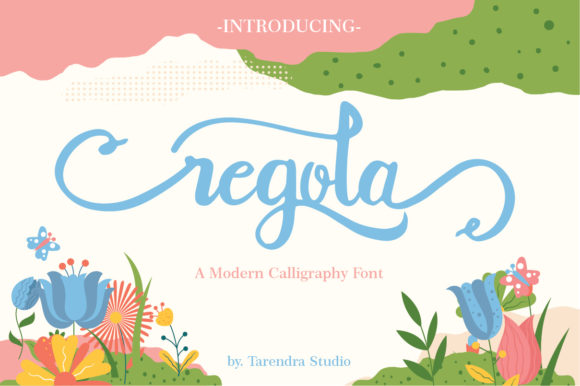
Introducing Regola Font, the script font that will add a dash of elegance and charm to your creative projects!
Picture this: A handwritten font so mesmerizing, it'll make your words dance off the page with grace and fluidity. Regola Font is a script font specially designed to capture the beauty and allure of handwritten signatures. Each letter flows into the next with an effortless elegance that will leave your audience spellbound, and it's perfect for adding a personal touch to any project.
Unleash your creativity and let your imagination run wild with Regola Font. Its versatile nature makes it ideal for a wide range of projects, from wedding invitations and stationery to social media posts and advertising campaigns. Whether you're designing product packaging or creating eye-catching quotes, Regola Font will elevate your words and leave a lasting impression.
With Regola Font, you'll have the power to transform ordinary text into captivating works of art. Its delicate curves and graceful lines will add a touch of sophistication to any design, while its easy-to-read style ensures that your message is always crystal clear. Whether you're a seasoned designer or just starting out, Regola Font is the perfect choice for adding a touch of magic to your projects.